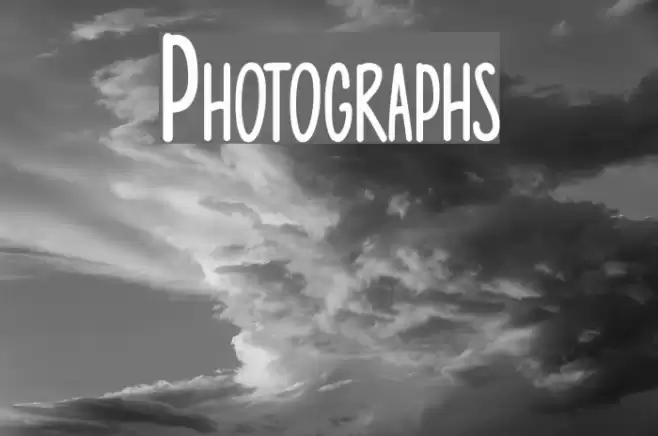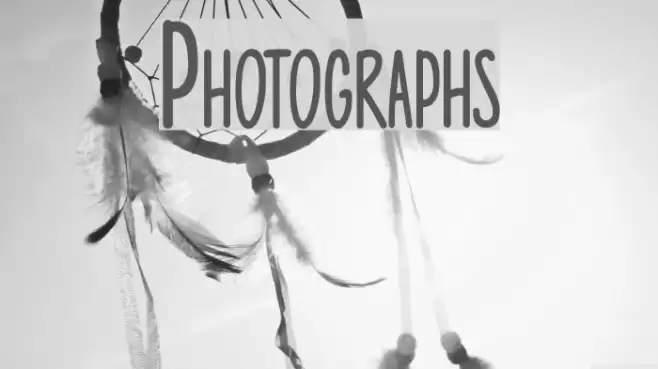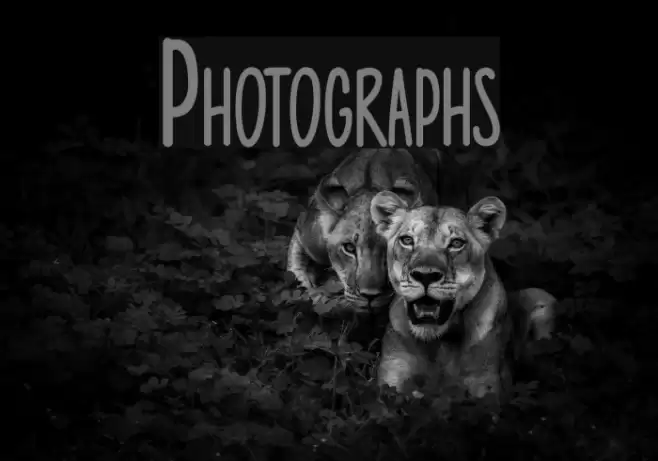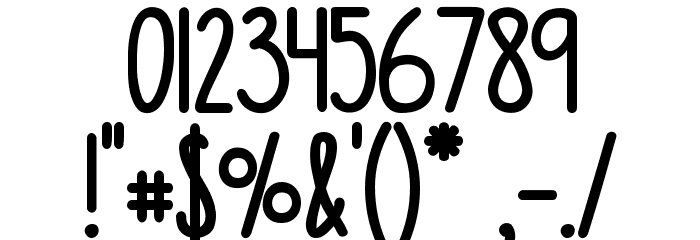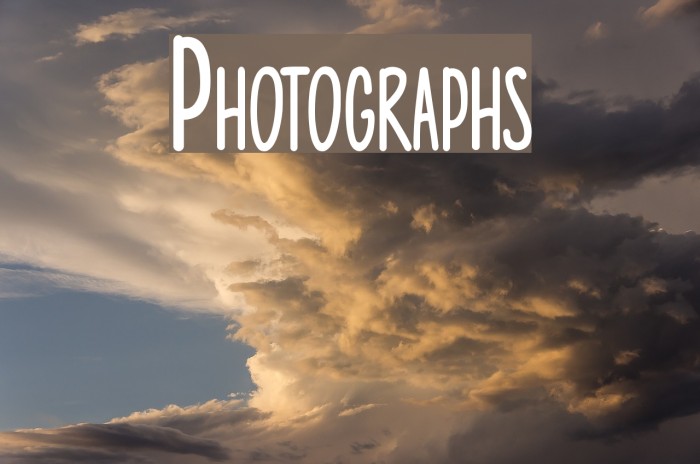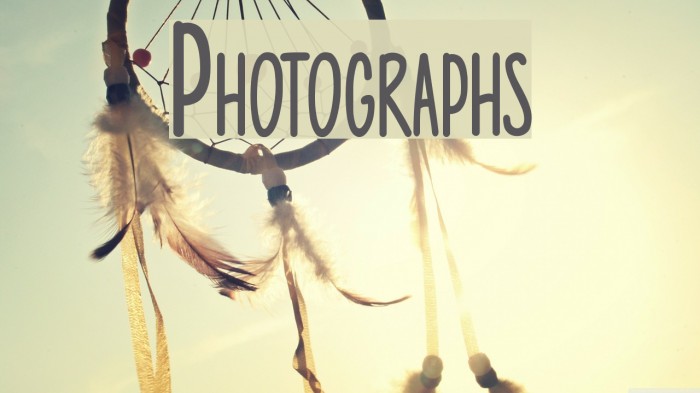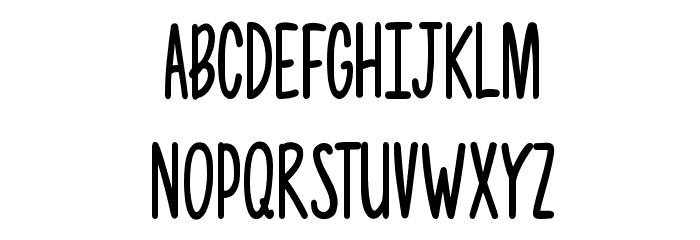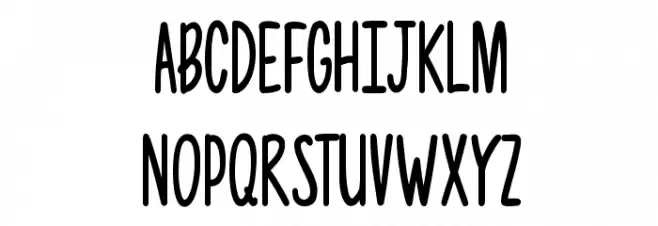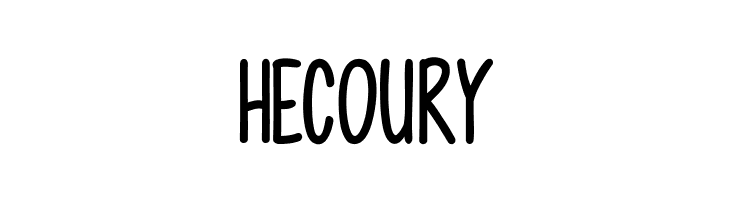
Photographs
This font features a playful and casual handwritten style, characterized by its rounded and slightly irregular letterforms. The uppercase letters are bold and prominent, making them suitable for attention-grabbing headlines. The lowercase letters maintain a consistent style with a friendly and approachable appearance. The numerals are clear and easy to read, matching the overall aesthetic of the font. Special characters are included, adding versatility for various design needs. This font's informal and lively nature makes it ideal for projects that require a personal touch or a fun, relaxed vibe.
A playful, casual handwritten font with rounded, irregular letterforms.
- Proposed Projects: Ideal for greeting cards, children's books, playful branding, and casual invitations.
- Overall Style: Casual, Playful
- Use Case: Headlines, Logos, Invitations